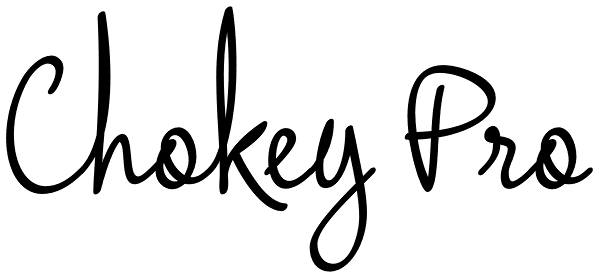
Chokey Pro
Chokey Pro is a richly featured, multi-language, joined handwriting script with a host of uses. Derived from La Carte, Chokey Pro works well wherever a sense of informality and spontaneity is required. Use it for menus and wine lists, newsletters...